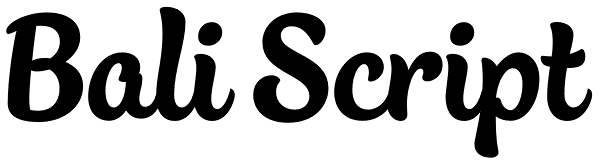
Bali Script
Inspired by the Indonesian island’s laid back feel and easy going culture, Bali Script is a tribute to the hand-lettered signage on beach bars, surf shacks and cafes. The swell of the stroke endings and the bolder-than-your-average gooey look convey...